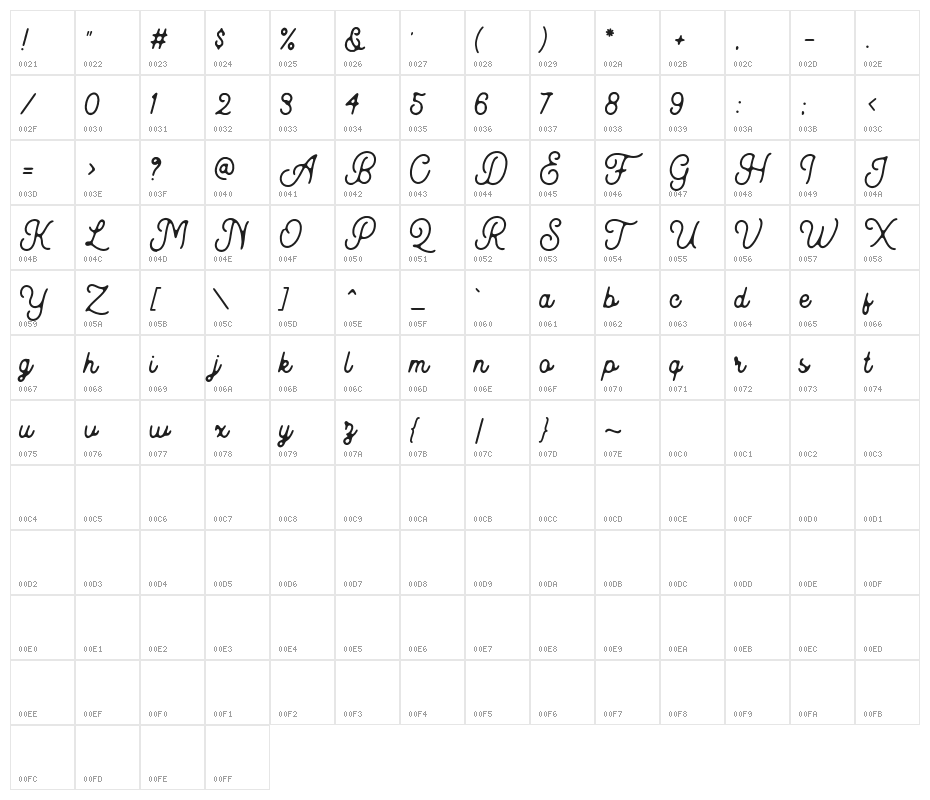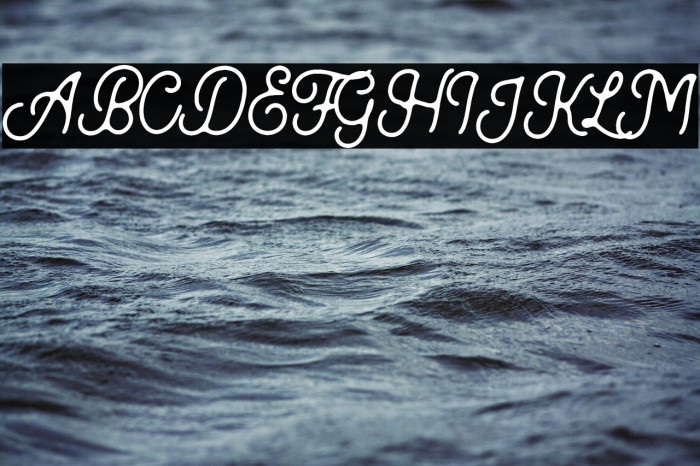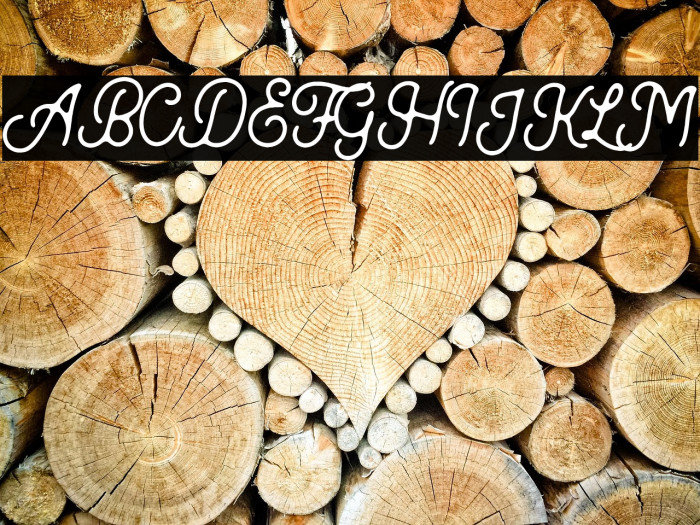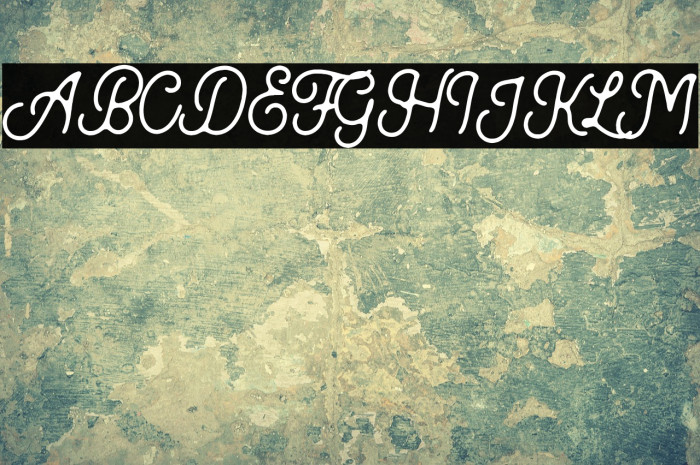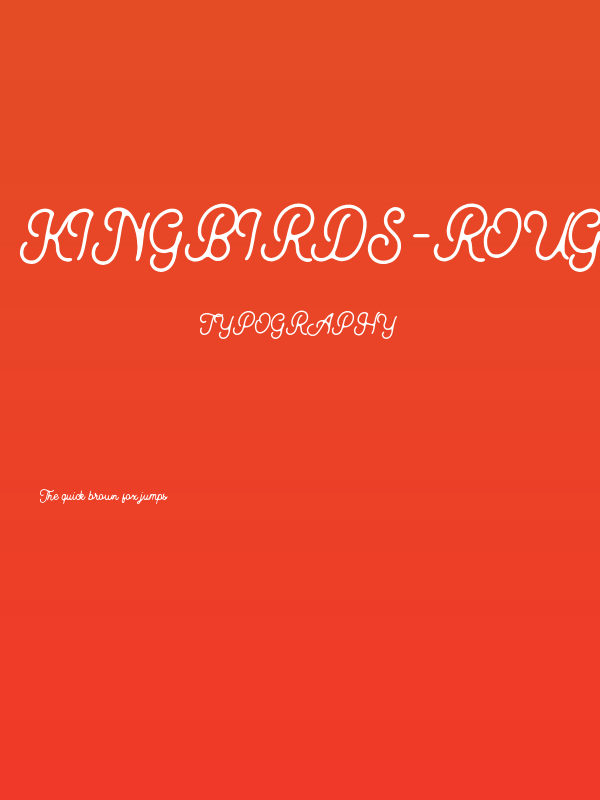
Kingbirds-Rough Font
Kingbirds-Rough Description
This font features a playful and dynamic script style with a rough, textured appearance. The uppercase letters are elegantly curved, maintaining a consistent flow, while the lowercase letters exhibit a more casual and relaxed form. The numerals are bold and slightly rounded, complementing the overall style. Special characters are creatively integrated, maintaining the font's unique aesthetic. The rough texture adds a handcrafted feel, making it suitable for projects that require a personal touch.
Use CaseLogos, Invitations, Greeting Cards
Proposed ProjectsIdeal for greeting cards, invitations, logos, and branding materials that seek a personal and artistic touch.